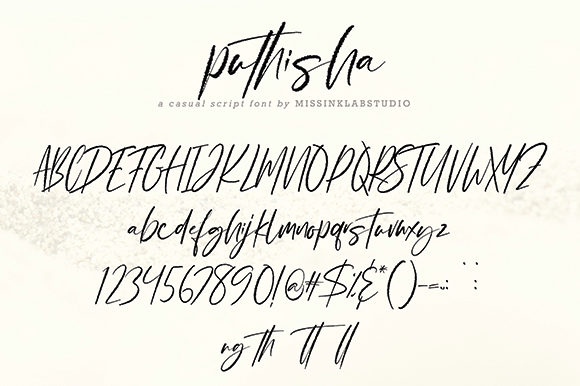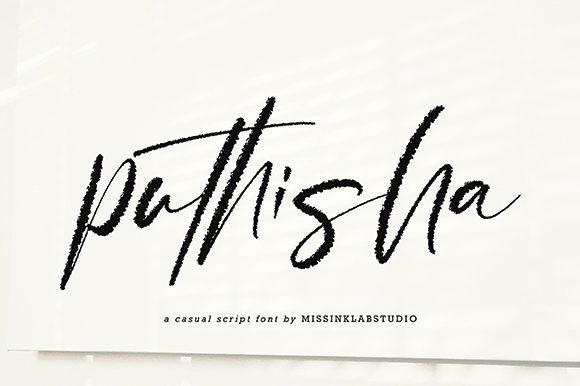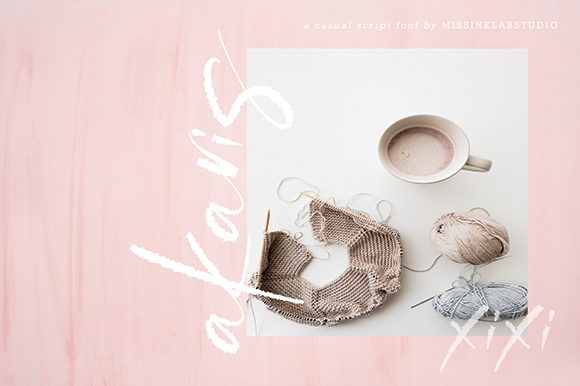
About Puthisha Font
Puthisha is a unique and elegant handwritten font, created with the help of a brush pen. It maintains its classy calligraphic influences while feeling contemporary and fresh.